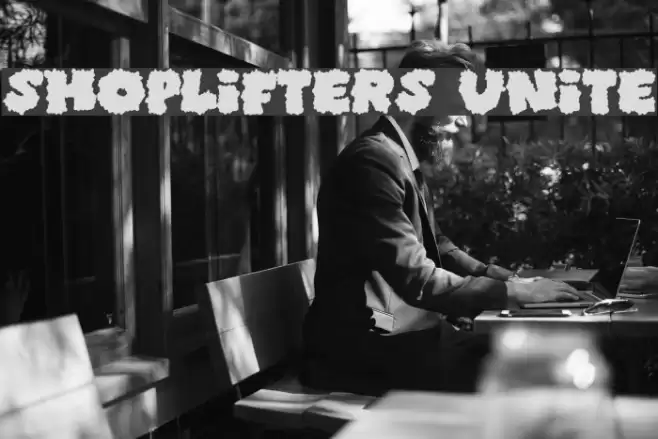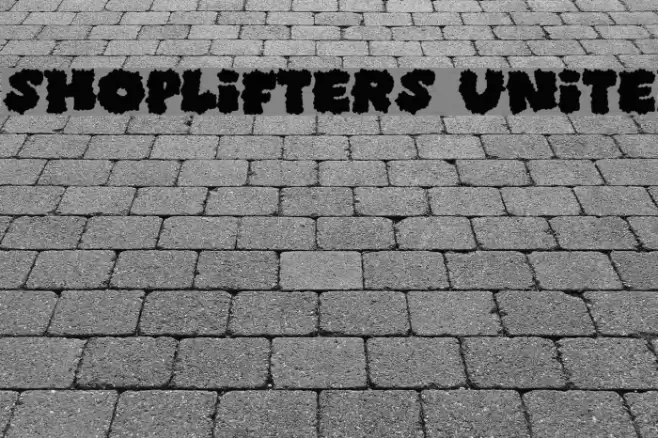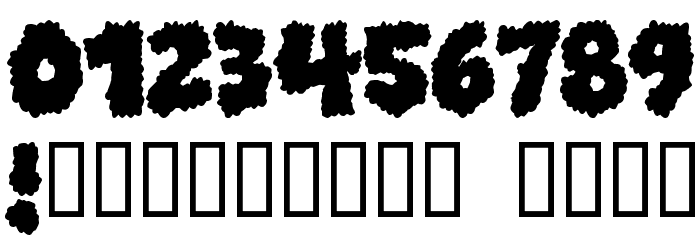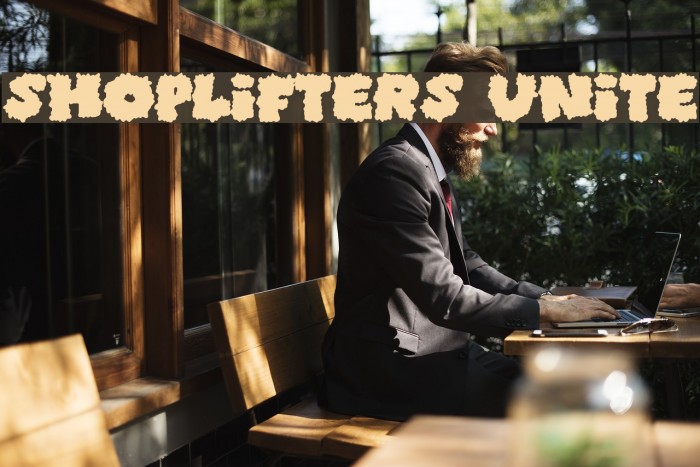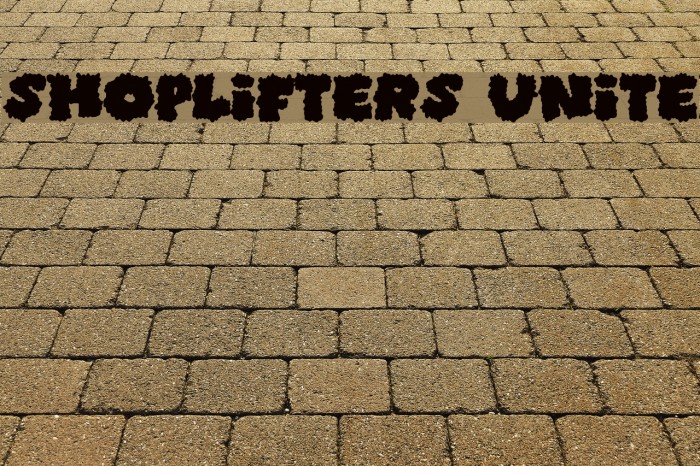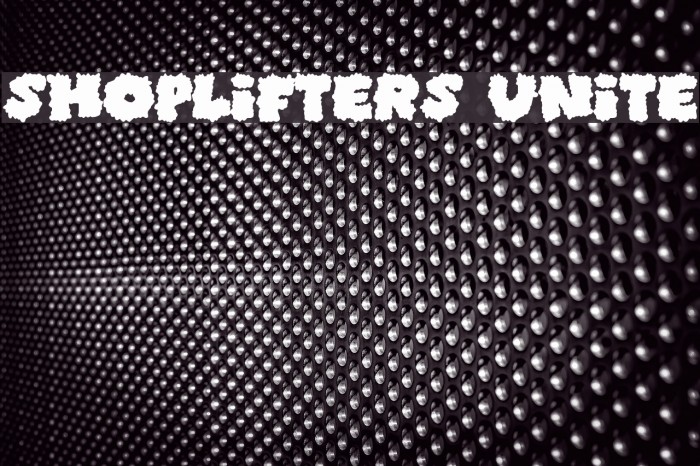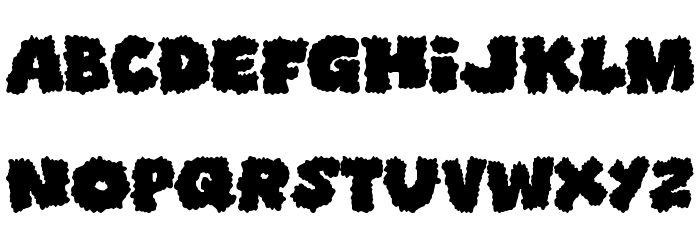
Shoplifters unite Font
Shoplifters unite Description
This font features a bold and playful design with a distinctly irregular and textured appearance. The characters are heavily stylized, resembling a fluffy or cloud-like texture, which gives them a unique and eye-catching look. The uppercase and lowercase letters maintain a consistent style, with rounded edges and a slightly chaotic form that adds to the whimsical nature of the font. The numbers and special characters follow the same design principles, ensuring a cohesive appearance across all elements. This font is ideal for projects that require a fun and informal touch, making it suitable for children's materials, playful branding, or creative posters.
A bold, textured font with a playful, cloud-like appearance from Distorted Eroded fonts.
- Proposed Projects: Ideal for children's books, playful branding, creative posters, and informal invitations.
- Overall Style: Playful, Whimsical